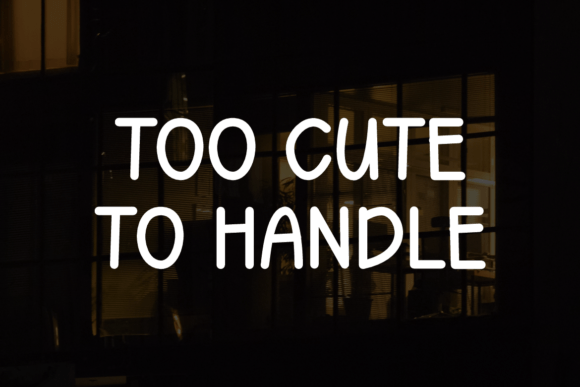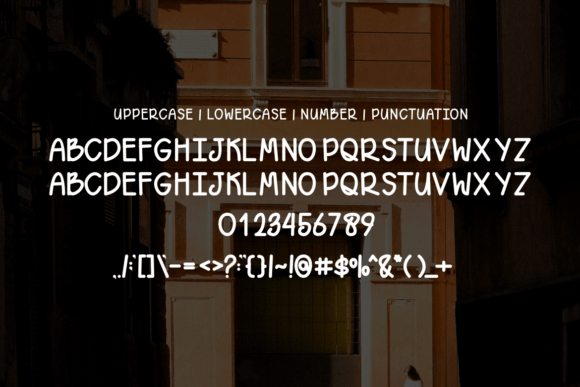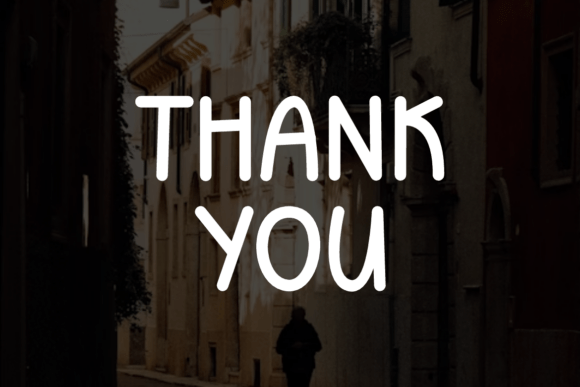
Introduction to Mochivie Font
Have you ever been brainstorming ideas for a creative project and suddenly, the perfect font pops into your mind? For designers, finding the right font can make all the difference between a good design and a great one. And that’s exactly what happened when I stumbled upon the Mochivie Font – a sweet and friendly handwritten font that’s perfect for any branding project.
As a design resource, Mochivie Font is extraordinary in a variety of contexts, from logos to t-shirt printing and creative products. Its high quality and unique charm make it a valuable addition to any designer’s toolkit. And the best part? It’s available for free download, complete with a transparent background, making it easy to incorporate into your designs.
- High-quality design resource with a unique, modern aesthetic, ideal for creative projects requiring a touch of elegance.
- Designed to be highly legible, with clear and distinct letterforms that are easy to read, even at small font sizes.
- Perfect for designers working on creative projects, such as logos, branding materials, and digital art, where a unique and stylish font is essential.
What works well with the Mochivie Font is its versatility. It comes in a range of styles and weights, making it suitable for a variety of design applications. I’ve used it for logos, typography, and even as a standalone title font. The font’s modern and sleek design makes it a great fit for contemporary creative projects.
However, there are some limitations to keep in mind. The Mochivie Font may not be suitable for all design styles, and some users may find the font’s modern aesthetic too bold or overpowering.
The Mochivie Font is perfect for creative projects that require a unique and eye-catching design element. Its transparent background makes it easy to combine with other design elements and create a cohesive look. Whether you’re designing a logo, flyer, or social media graphic, the Mochivie Font is a great choice.
Great Vibes Font is a great alternative to Mochivie Font because of its more refined and polished look. While Mochivie Font is more playful and fun, Great Vibes Font is perfect for projects that require a more sophisticated and elegant feel.